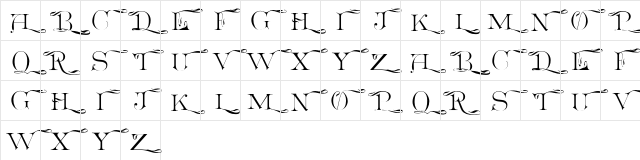
EuclidCP Regular Free Font
EuclidCP Regular
EuclidCP Family
Design Context for EuclidCP
EuclidCP is a composed and adaptable typeface that performs quietly and consistently across a wide range of design contexts.
Pro Tip: Use EuclidCP in both headline and body roles to test its range before committing to a single application.